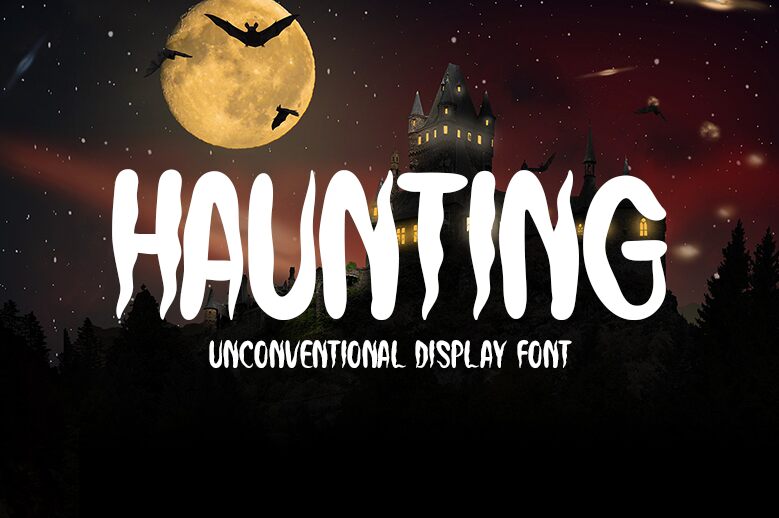
Haunting font family by Md Shohail Bhuian presents a unique and eerie experience through its unconventional organic shapes, uneven textures, and haunting aesthetic. The free font family, consisting of 2 font styles, is filled with inspiring mood and can have a significant impact when used in branding and design.
Haunting can be a great choice for designing Halloween-themed invitation cards, posters, and banners. It can be used to produce horror movie/video covers and packaging, design social media posts, or in games and apps. Make your T-shirts and other print designs an attention grabber with this font.